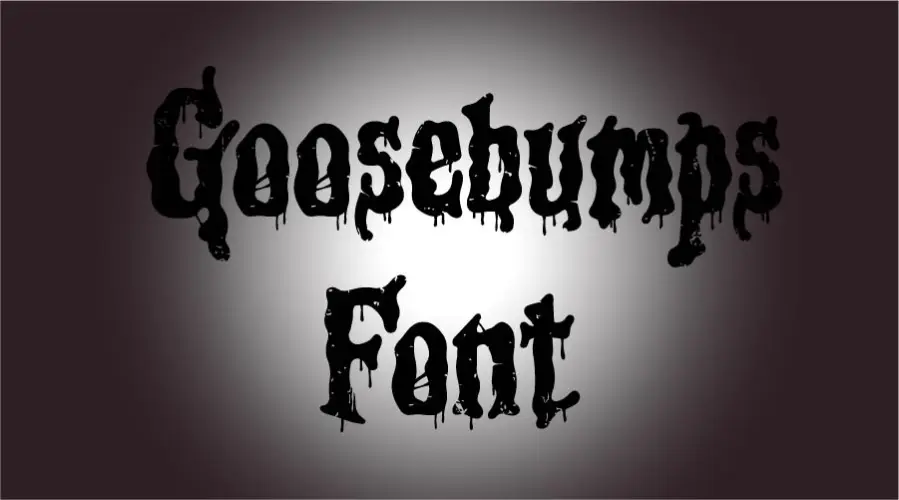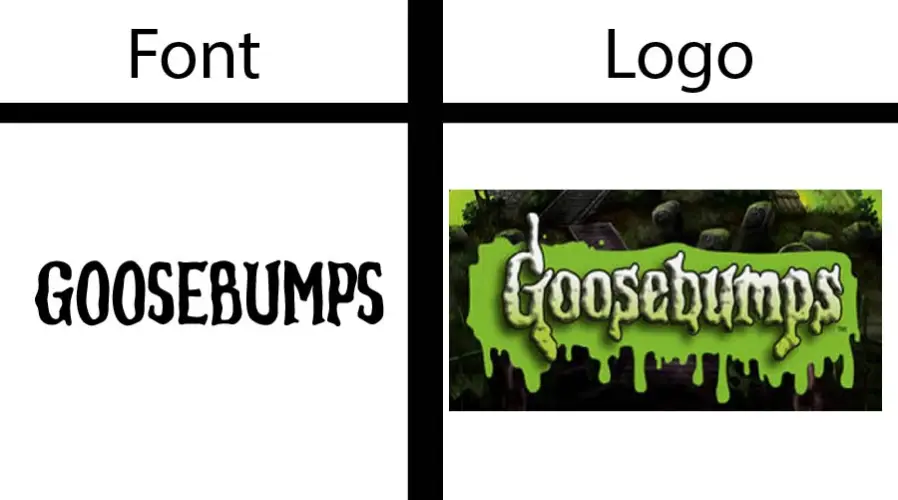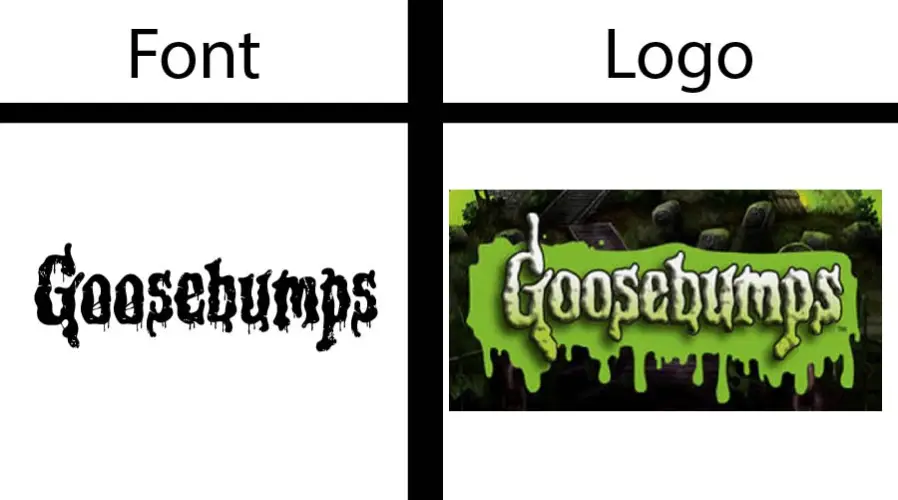
Goosebumps Font
Do you want the Goosebumps font? Then you’re in the right spot! Goosebumps is a popular series of horror books for children, written by R. L. Stine. The books feature different stories of kids who encounter scary situations involving monsters, ghosts, or magic. The books are also known for their humour and twisty endings. The series has inspired a TV show, movies, video games, and other media.
Goosebumps logo vs Big Goosebumps Font similarity Example
The Goosebumps font used on the TV show is custom. But it has been recreated in Big Goosebumps font. But you have to purchase this font to use it.
Goosebumps logo vs Gortem Font similarity Example
You can also use the Gortem font, which is similar to the logo in the TV show. FG Studios designed this font.